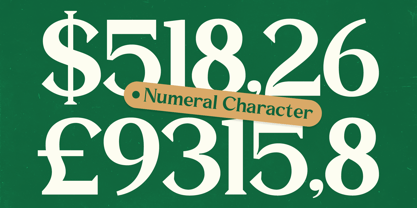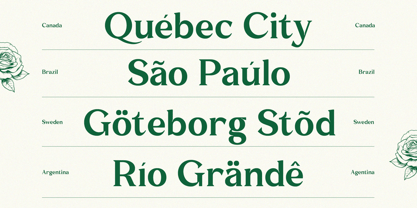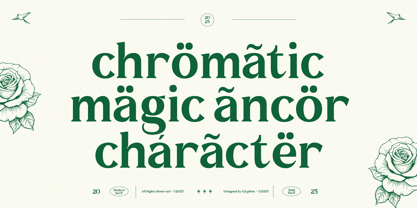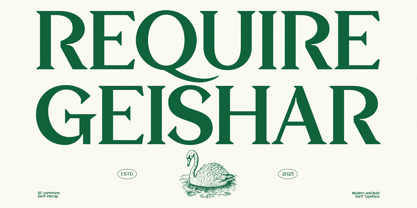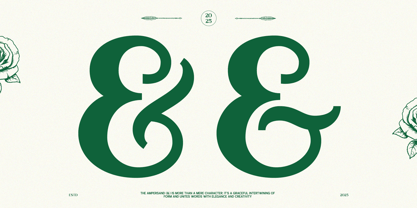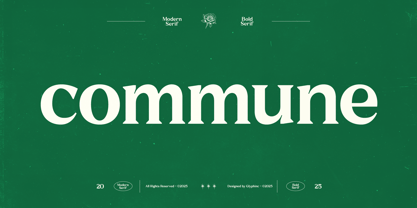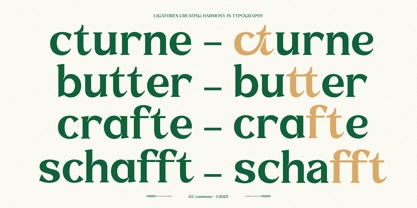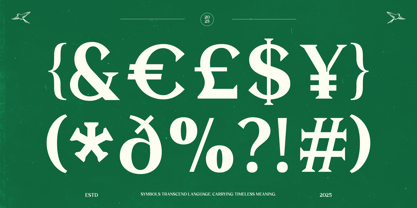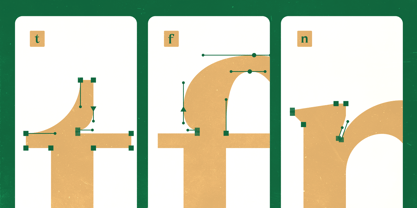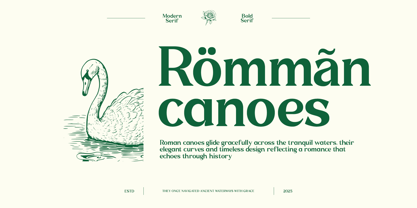
GC Commune
by Onyx Studio
The GC Commune Font Family was designed by Muhammad Hafiizh Solana and published by Onyx Studio. GC Commune contains 2 styles and family package options. More about this family
GC Commune is a bold modern serif typeface with distinctive inktrap details that blends classic elegance with contemporary sharpness. Designed to balance sophistication and readability, it’s perfectly suited for headlines, branding, logos, packaging, editorial layouts, and impactful print design. Crafted to make a memorable impression, it delivers both character and precision in every letter. With its high-contrast strokes, structured serifs, and signature inktrap cuts, GC Commune offers a refined yet striking look. Whether you’re designing for fashion, lifestyle, corporate, or artistic projects, this typeface provides versatility with a confident modern edge. Features: Uppercase & Lowercase Ligatures & Stylistic Alternates Numbers & Punctuation Multilingual Support Make your design bold, refined, and timeless with GC Commune.
Designers: Muhammad Hafiizh Solana
Foundry: Onyx Studio